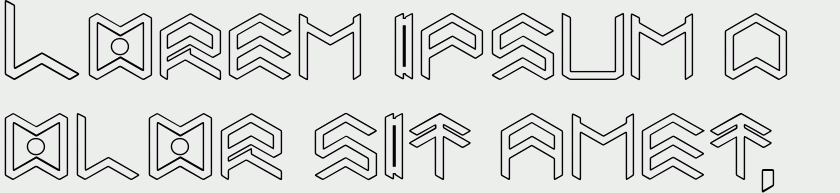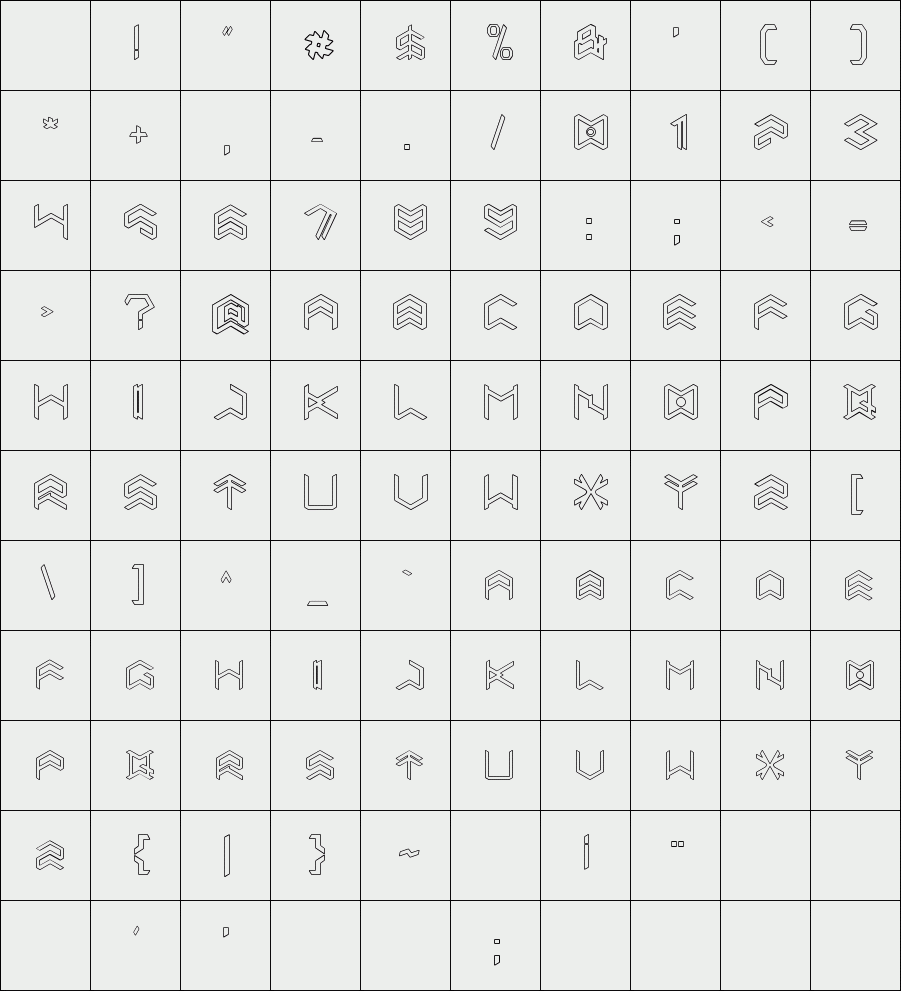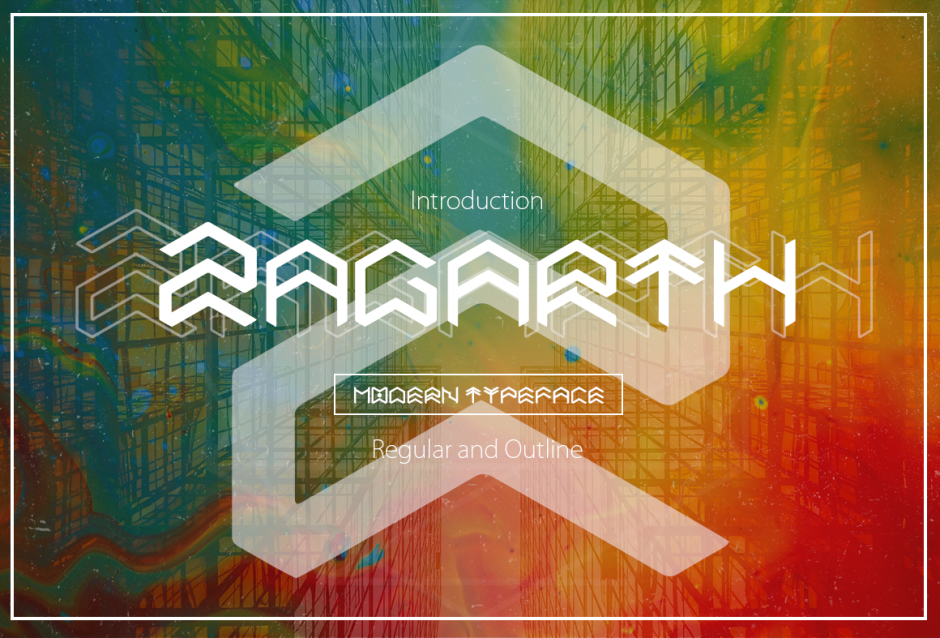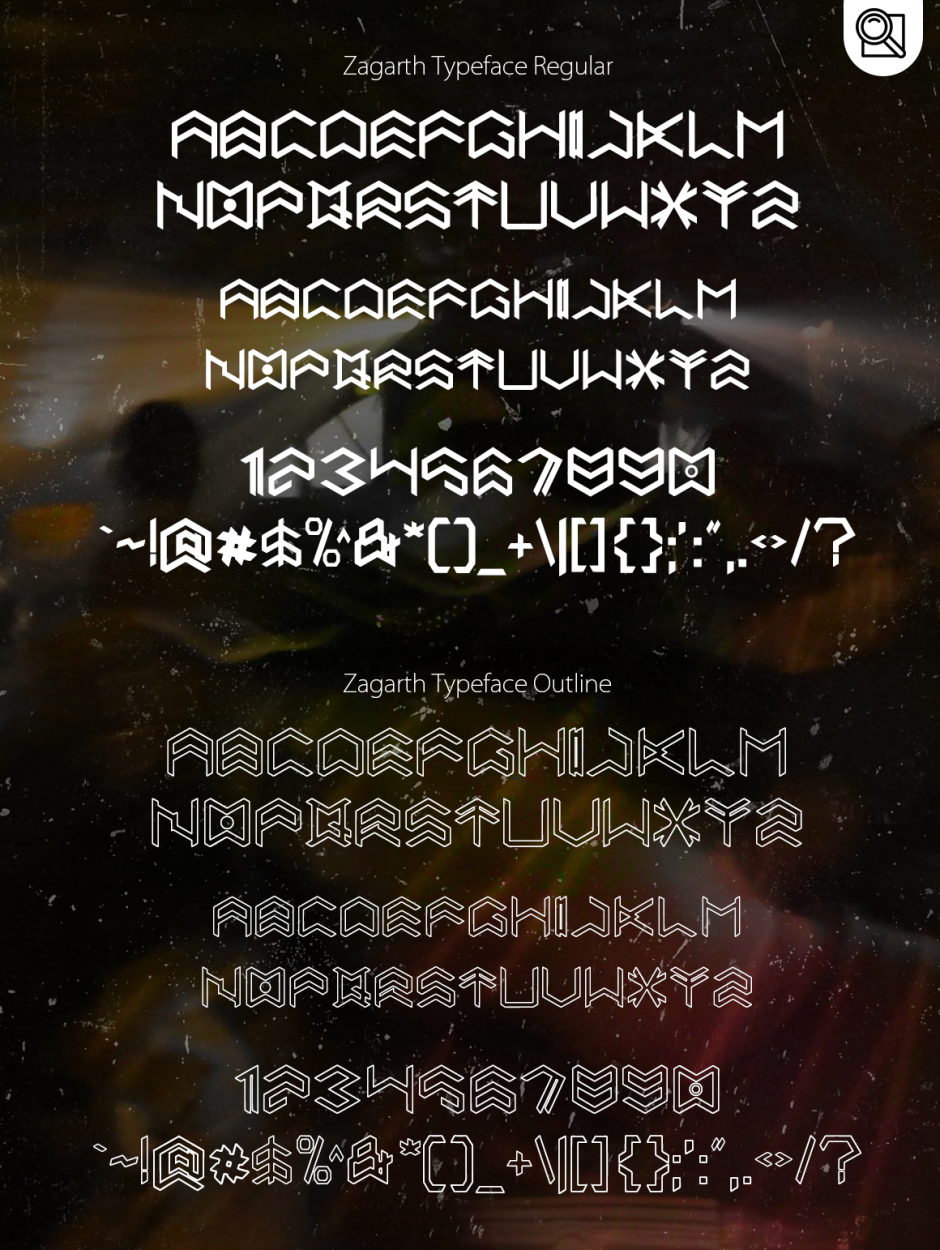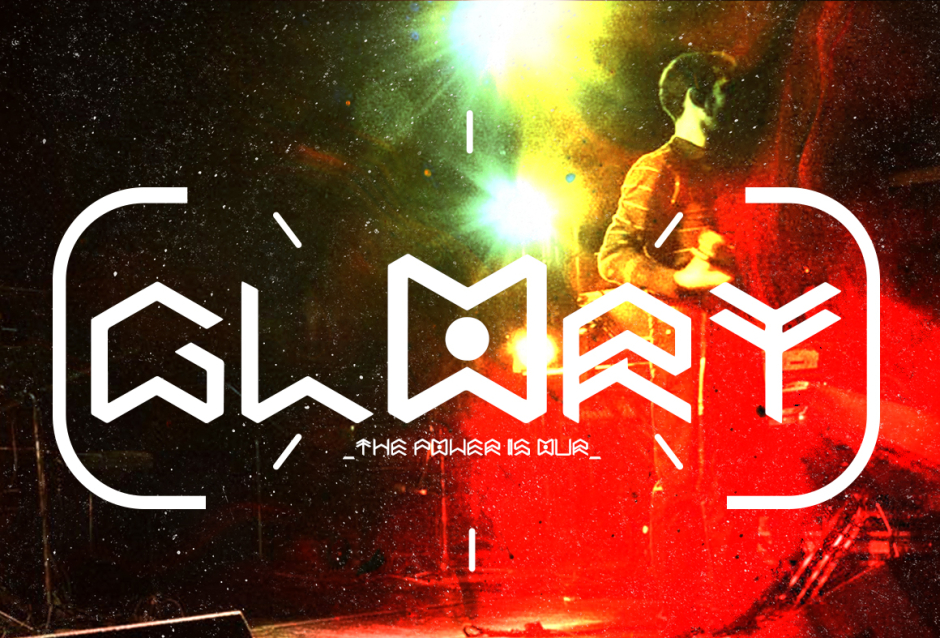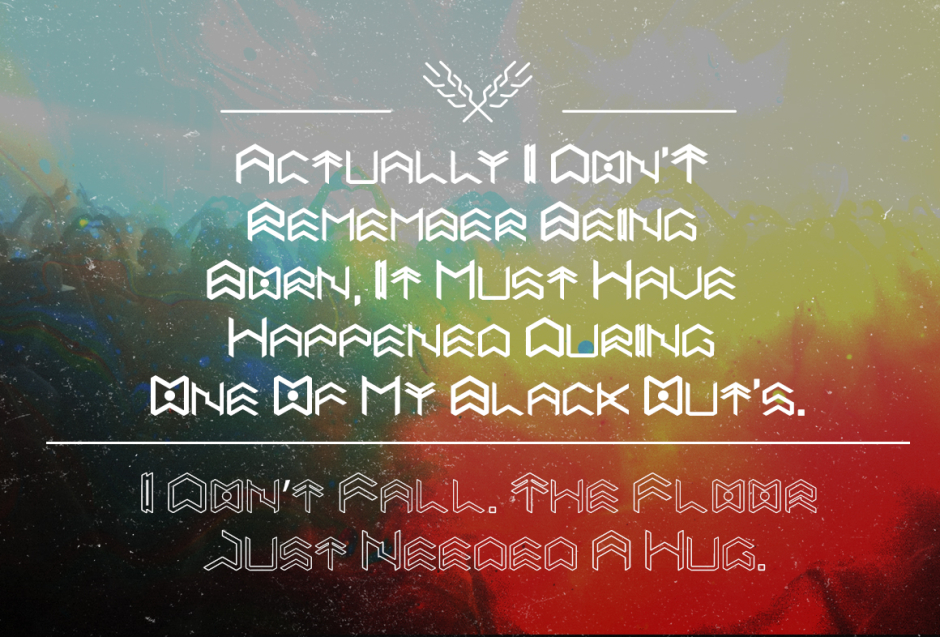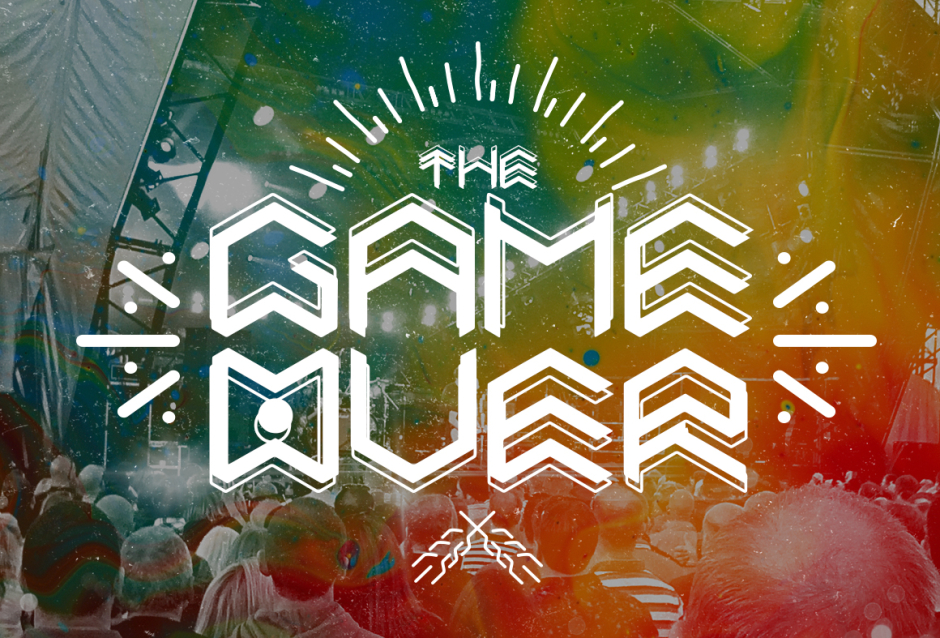
Zagarath
/ Zagarath Outline
Zagarth inspired by the music and urban technology. Zagarth typeface includes a full set of uppercase Zagarth Regular and Zagarth Outline, numerals and punctuation.Could help to good display, uses for labeling, clothing, music poster, film title, gigs, or cover album and etc.